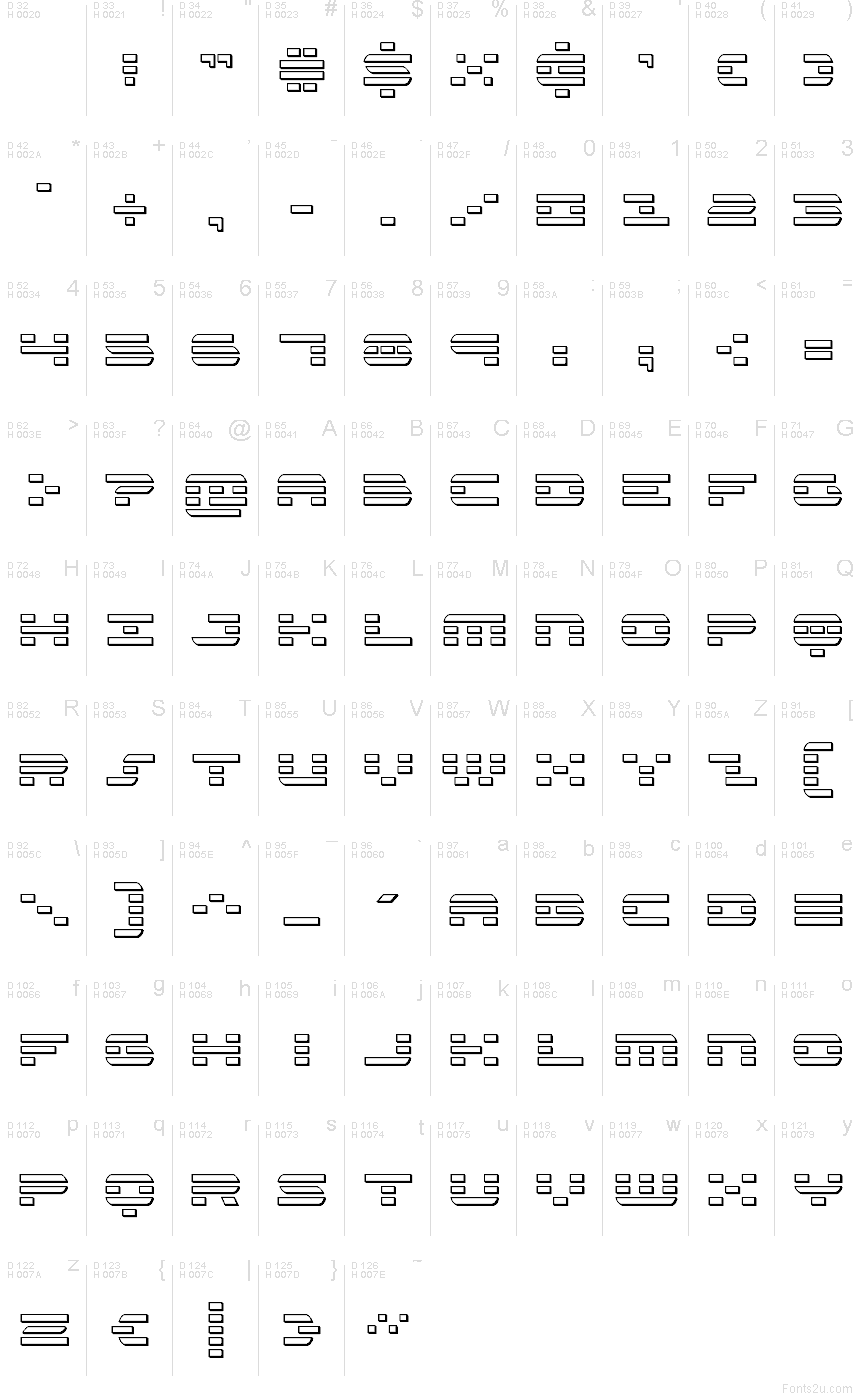
Nova Terra 3D Condensed
Nova Terra 3D Condensed font by Iconian Fonts is a free futuristic 3D display typeface from the Nova Terra family that looks like it’s been machined from chrome and stacked into tight, modular blocks. The condensed proportions let you pack in long sci‑fi titles while the shaded, beveled edges add instant depth and motion, like glowing panels on a spacecraft hull. Letters lock together in a rhythmic grid, giving logos and wordmarks a techy, engineered feel without needing extra effects.
Using Nova Terra 3D Condensed, you can badge up gaming logos, sci‑fi posters, esports banners, tech YouTube covers, interface mockups, event flyers, and futuristic product packaging. This free font shines most at large sizes where the layered 3D forms can breathe. Pair it with a clean geometric sans for body text, and let Nova Terra 3D Condensed handle the loud, cinematic headlines on your project.